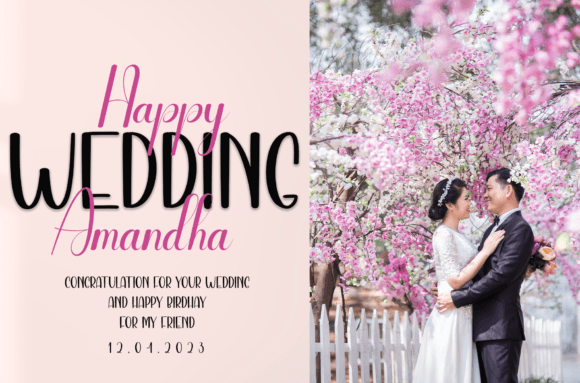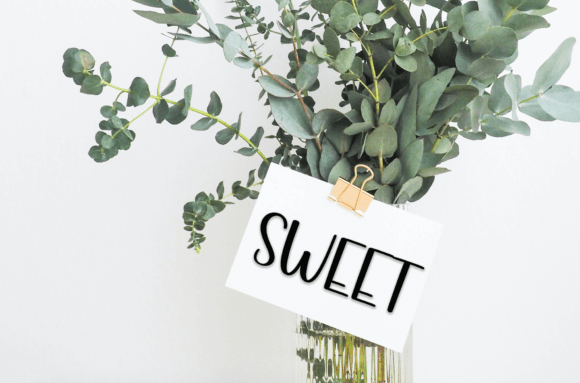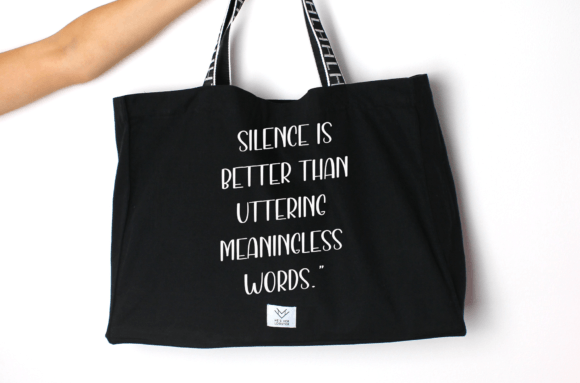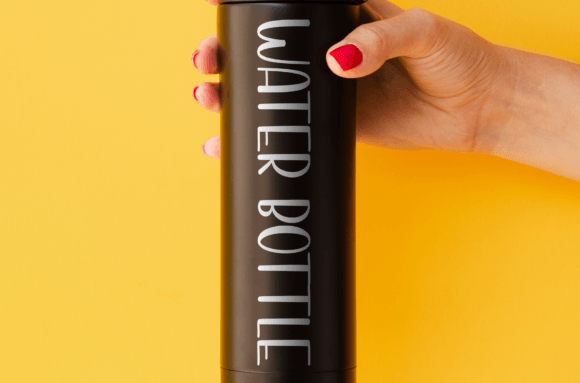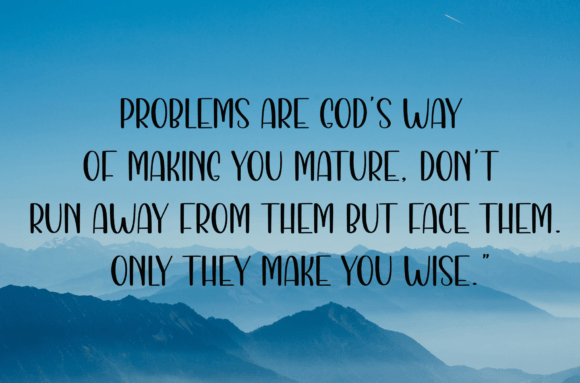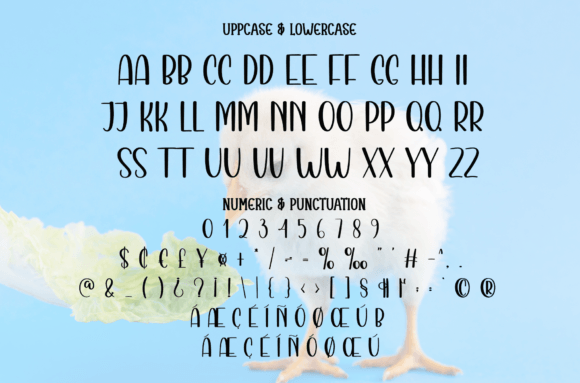
Introducing Chicks Font: The Sweet and Friendly Handwritten Font for Your Design Needs
Are you looking for a font that can add a touch of sweetness and friendliness to your designs? Look no further than Chicks Font! This beautiful handwritten font is perfect for creating wedding invitations, cards, and other designs that require a fun and playful touch. In this article, we’ll take a closer look at Chicks Font, its features, and how you can use it to elevate your designs.
What is Chicks Font?
Chicks Font is a sweet and friendly handwritten font that’s perfect for designers and crafters who want to add a personal touch to their work. This font is carefully crafted to provide a fresh and neat look that’s ideal for a variety of design projects. Whether you’re creating wedding invitations, birthday cards, or social media graphics, Chicks Font is the perfect choice.
Features of Chicks Font
So, what makes Chicks Font so special? Here are some of its key features:
- Handwritten look: Chicks Font has a beautiful handwritten look that’s perfect for creating personal and unique designs.
- Sweet and friendly: This font has a sweet and friendly tone that’s ideal for designs that require a playful touch.
- Fresh and neat: Chicks Font is carefully crafted to provide a fresh and neat look that’s perfect for a variety of design projects.
- Easy to read: This font is easy to read, making it perfect for designs that require a clear and concise message.
Uses of Chicks Font
Chicks Font is a versatile font that can be used for a variety of design projects. Here are some of the most popular uses of this font:
- Wedding invitations: Chicks Font is perfect for creating beautiful and unique wedding invitations that set the tone for the big day.
- Cards: This font is ideal for creating birthday cards, thank-you cards, and other types of cards that require a personal touch.
- Social media graphics: Chicks Font can be used to create fun and engaging social media graphics that showcase your brand’s personality.
- Logos: This font can be used to create beautiful and unique logos that reflect your brand’s values and personality.
Tips for Using Chicks Font
Here are some tips for using Chicks Font in your designs:
- Pair it with other fonts: Chicks Font can be paired with other fonts to create a unique and interesting look.
- Use it for headings: This font is perfect for headings and titles, as it adds a touch of personality to your designs.
- Experiment with colors: Chicks Font looks great in a variety of colors, so don’t be afraid to experiment and find the perfect color for your design.
In conclusion, Chicks Font is a beautiful and versatile handwritten font that’s perfect for designers and crafters who want to add a personal touch to their work. With its sweet and friendly tone, fresh and neat look, and ease of use, this font is ideal for a variety of design projects. Whether you’re creating wedding invitations, cards, or social media graphics, Chicks Font is the perfect choice. So why not give it a try and see how it can elevate your designs?